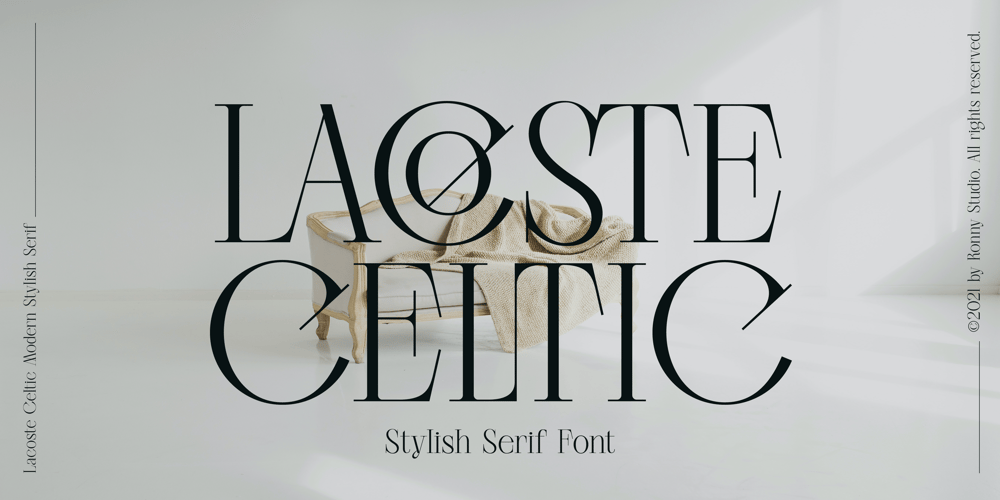
Lacoste Celtic Font Family was designed by Rony Rizki Jaya and published by Ronny Studio. Lacoste Celtic contains 2 styles and family package options. Introducing, Lacoste Celtic, A sophisticated ligature serif from us. This typeface has been made carefully to make sure its premium quality and luxury feel. The ligatures makes this typeface unique and stands out rather than the regular serif font, very suitable for logo, headline, tittle, and the other various formal forms such as invitations, labels, logos, magazines, books, greeting / wedding cards, packaging, fashion, make up, stationery, novels, labels or any type of advertising purpose.Features :- Lowercase & Uppercase- numbers and punctuation- multilingual- ligatures- alternates- PUA encodedPlease contact us if you have any questions. Enjoy Crafting and thanks for supporting us! :)Thank you